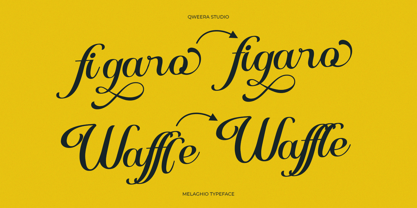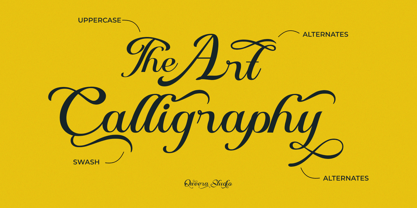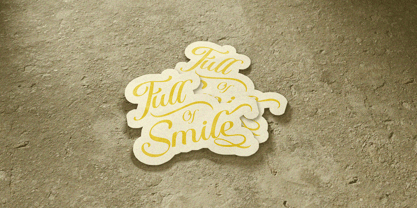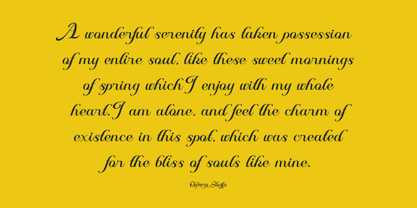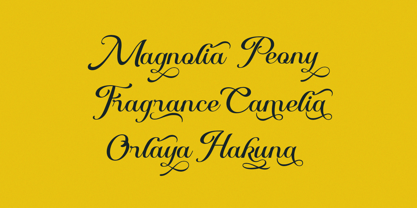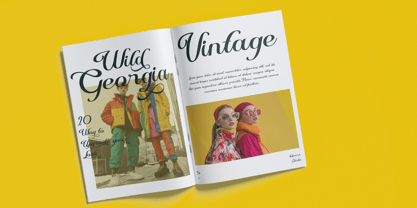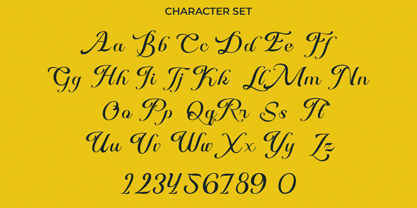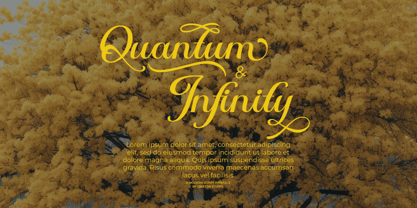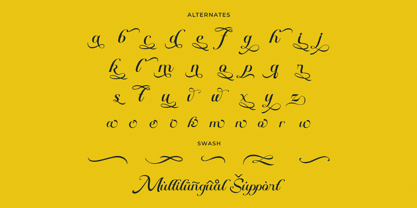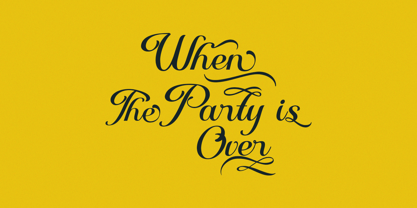
Melaghio
by Qweera Studio
The Melaghio Font Family was designed by Idhham Cholid Rikzano Yahya and published by Qweera Studio. Melaghio contains 1 styles.
Melaghio - Elegant Modern Script Font for Creative Designs
Melaghio is a sophisticated modern script font designed to bring elegance and style to your creative projects. Featuring alternates, ligatures, and swashes, this font offers flexibility and uniqueness, allowing users to customize designs effortlessly.
Perfect for branding, posters, magazines, and premium print materials, Melaghio adds a touch of class and refinement to any project. Its fluid strokes and stylish details create a luxurious and professional look, making it an ideal choice for high-end design needs.
Enhance your typography with Melaghio – where modern elegance meets timeless beauty!
• Opentype features ( ligature, alternate )
Multilingual character supports : (Afrikaans, Albanian, Catalan, Croatian, Czech, Danish, Dutch, English, Estonian, Finnish, French, German, Hungarian, Icelandic, Italian, Lithuanian, Maltese, Norwegian, Polish, Portuguese, Slovenian, Spanish, Swedish, Turkish, Zulu)
Designers: Idhham Cholid Rikzano Yahya
Publisher: Qweera Studio
Foundry: Qweera Studio